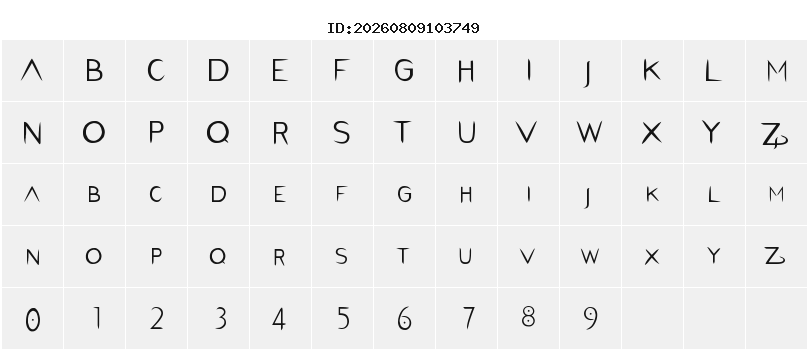
PentaGram’s Salemica Preview
About PentaGram’s Salemica.ttf
PentaGram’s Salemica.ttf is a modern, elegant sans-serif font designed for ultimate readability and visual harmony. Perfect for branding, headlines, web design, and print materials.